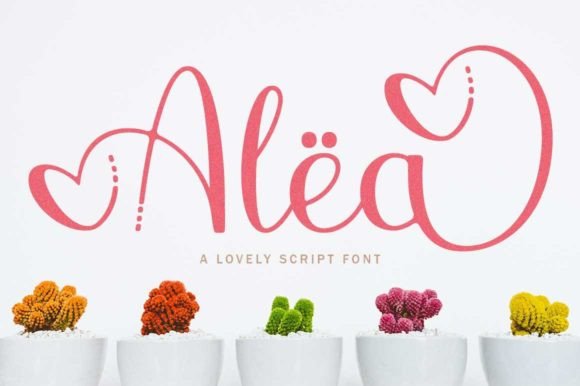
The Alea Font: A Romantic Twist for Your Designs
I still remember the time I was working on a wedding invitation project, and my client asked me to create something that would make their loved ones swoon. I scoured the internet for the perfect font, but nothing seemed quite right – until I stumbled upon Alea Font. With its delicate strokes and heart-shaped tails, I knew I had found the one. In this article, I’ll share my love for Alea Font, its features, and how to make the most of it in your designs.
- ✨ Delicate strokes and graceful curves that give each letter a sense of elegance
- ✅ Heart-shaped tails that add a touch of whimsy and romance
- 💕 Perfect for wedding invitations, love notes, and other designs that require a touch of warmth
- 🎨 Highly versatile and can be used for a variety of creative projects
While Alea Font is a stunning addition to any design, there are a few things to keep in mind:
- ⚠️ Some of the heart-shaped tails can be a bit finicky when it comes to font sizes and styles
- 🤔 May not be the best choice for body text or long paragraphs, as it can be a bit too ornate
The Story Behind Alea Font
Alea Font was designed by a talented type designer who wanted to create a font that would capture the essence of love and romance. Inspired by the beauty of handwritten scripts and the elegance of traditional typography, Alea Font was born. With its delicate strokes and heart-shaped tails, it’s no wonder that Alea Font has become a favorite among designers and crafters.
Q: What makes Alea Font so special?
A: Alea Font’s unique blend of delicate strokes and heart-shaped tails makes it a standout in any design.
Q: Is Alea Font suitable for body text?
A: While Alea Font is beautiful, it’s not the best choice for body text or long paragraphs. It’s better suited for headings, titles, and short messages.